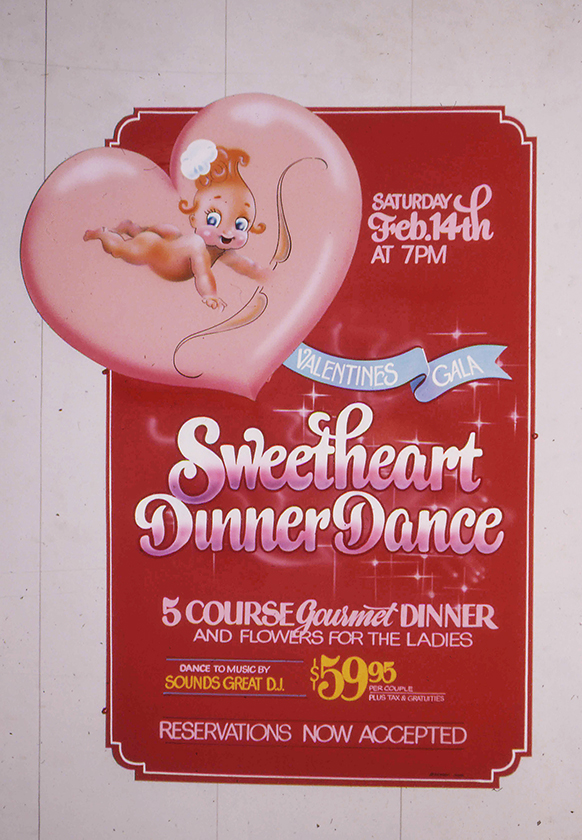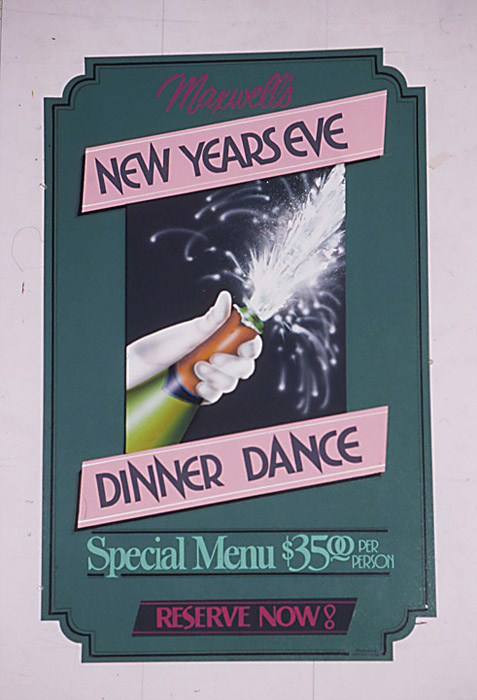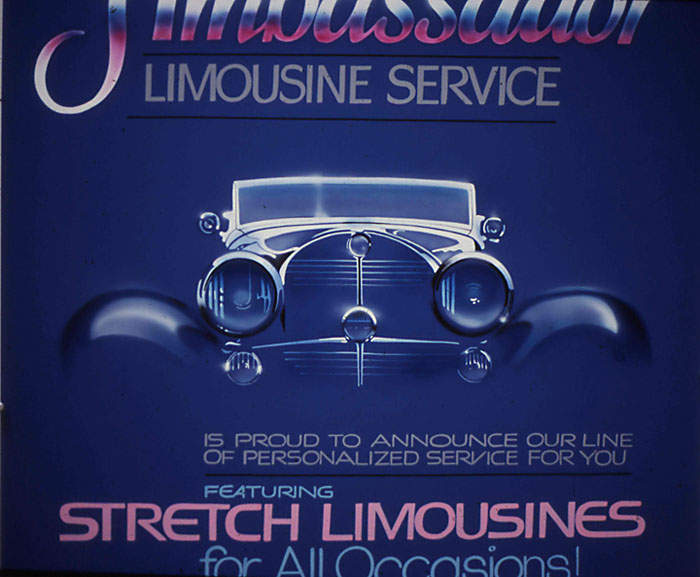
Lately I've been sorting out my computer and old photographs and stumbled on a few photos from the days before I was doing all the wood signs and was concentrating on show-cards. I don't know how far back and what other folks remember of what got them started in this craft of ours but for the sake of it I'll jot down a couple of my earliest memories.
In the days before colour TV on our local station they would have a show-card (all in shades of black and white) with a voice over of the announcer letting you know about the sale at the tailor shop of whatever. They had a captive audience in those days as there wasn't the 300 channel world of today and limited to about 2 maybe 3 stations. My goal was to be be "That" guy and spent the first 10 years doing nothing but show cards. So in the spirit of "Showing off" here's a few that I actually bothered to take an old slide photo of.
I'm hoping that others will join in on the idea of being bold and showing off some old "n" as well as the great stuff I see everyone doing.